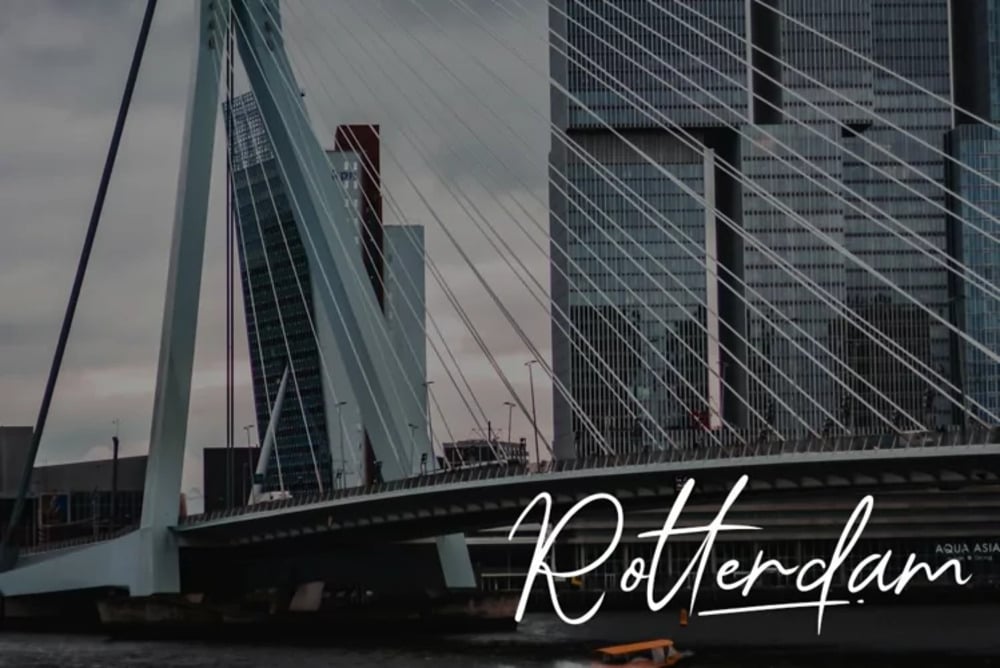
Angello Font
Angello is a stylish handwritten script font, blending elegance with a casual, personal touch. Its smooth curves and flowing strokes make it ideal for invitations, branding, and artistic projects. Angello radiates charm and creativity, adding a sophisticated yet approachable vibe to designs while maintaining excellent readability across both print and digital media.